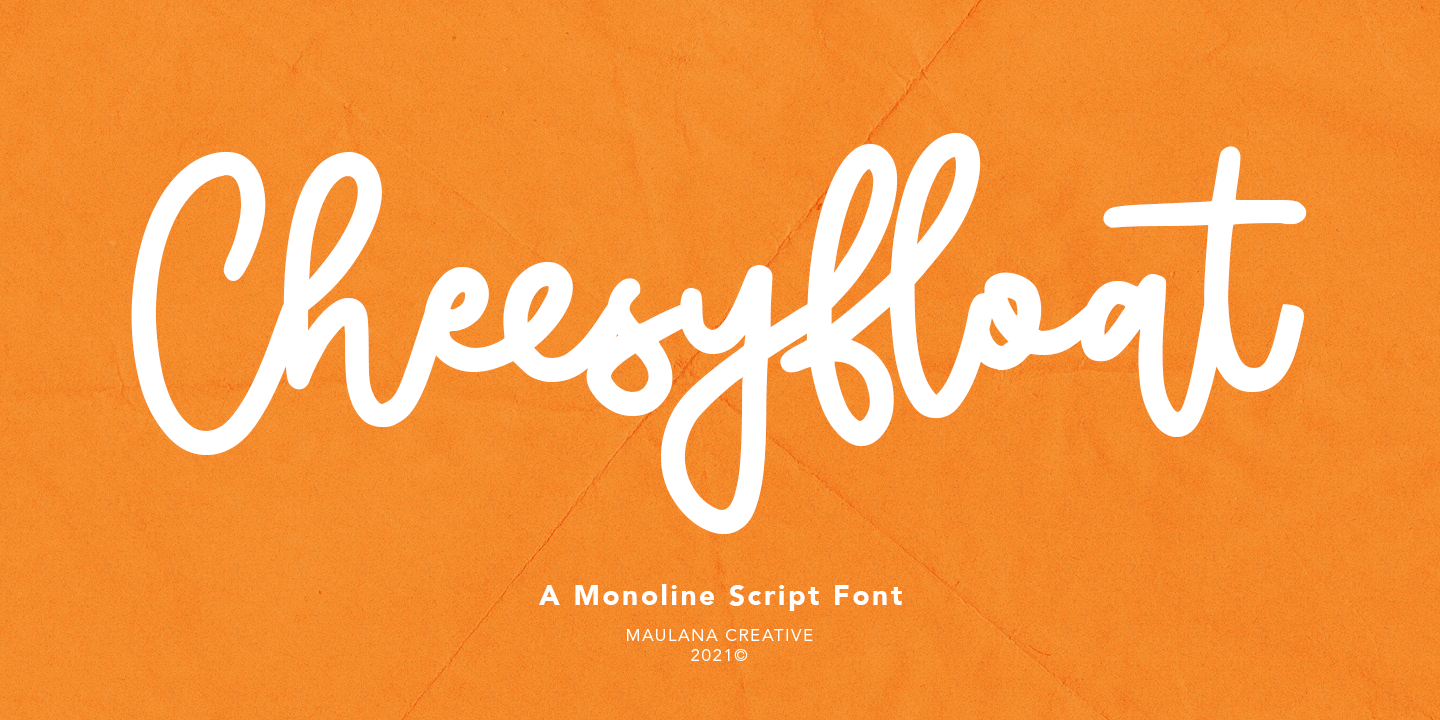
Cheesyfloat Font is perfect for playful children's brands, fun food packaging, quirky greeting cards, cartoon character logos, casual gaming graphics, creative toy advertisements, whimsical party invitations, and lighthearted social media campaigns. This delightful typeface excels in entertainment applications, family-friendly branding, and any project requiring cheerful personality that brings smiles and creates joyful connections with audiences of all ages.
What makes Cheesyfloat Font exciting is its irresistible charm and playful bounce that instantly creates feelings of happiness and lighthearted fun through delightfully unconventional letterforms. The font features wonderfully wobbly characters with floating baseline variations and cheerful irregularities that mimic childlike creativity and spontaneous joy, making it ideal for brands seeking to connect with audiences through humor and playfulness. Its endearing imperfections create authentic emotional warmth and memorable personality.
Cheesyfloat Font family includes multiple weights and styles: Regular, Bold, Light, Medium variations, and extra-bouncy alternates with enhanced floating characteristics and playful embellishments. Each family member maintains the distinctive cheerful character while offering versatile design options for comprehensive fun-focused campaigns, from gentle playful text to bouncing headlines that capture attention through pure joy.
Whether you're designing children's entertainment materials or creating fun lifestyle brand campaigns, Cheesyfloat Font Free Download provides the perfect typography solution for playful communication needs. This font transforms ordinary text into delightful visual experiences that communicate joy and spontaneous fun. Family brands and entertainment companies choose this typeface for its ability to convey happiness through charmingly crafted letterforms that create instant smiles and lasting positive impressions.